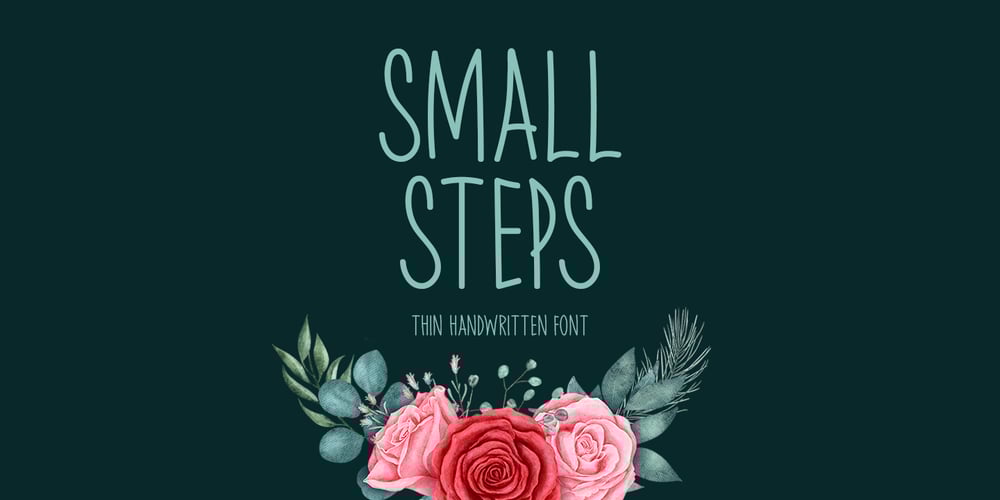
Small Steps Font Family was designed by Md Shohail Bhuian and published by Seemly Fonts. Small Steps contains 1 styles and family package options. Presenting Small Steps is an elegant and sophisticated handwritten typeface that gives your work a distinctive character. It’s ideal for improving everything from t-shirts and print materials to stationery and logos. It may also be used for a wide range of other things, such as website headers, picture frames, flyers, music covers, posters, and image sliders.